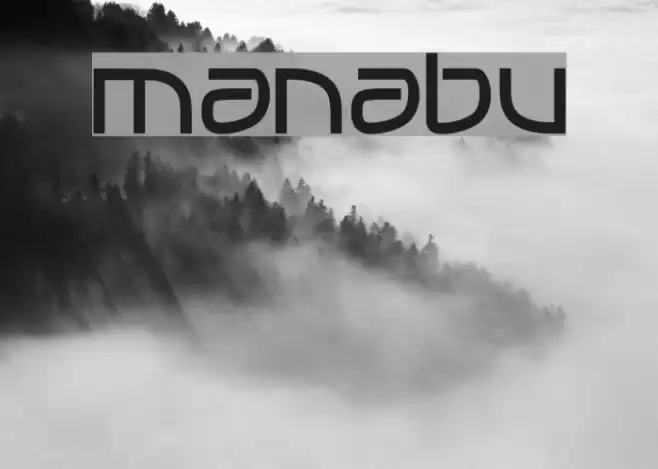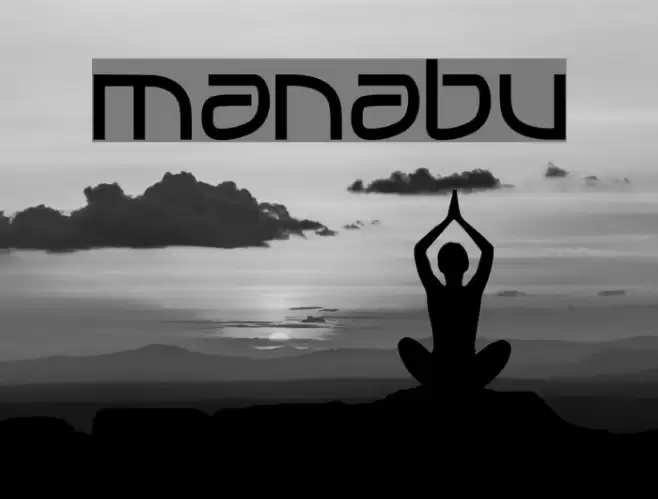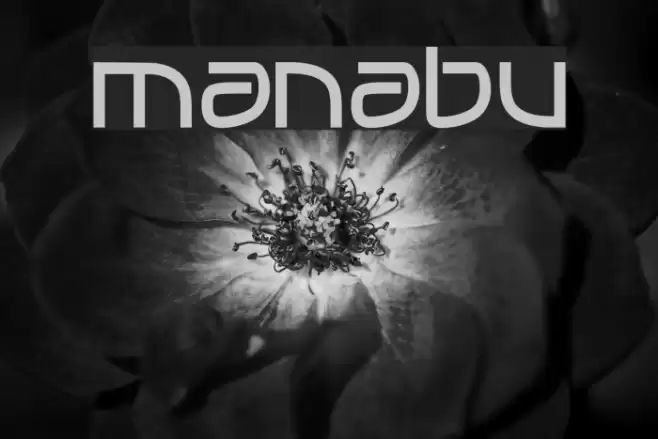
MANABU Font
MANABU Description
This font features a modern and futuristic design with a geometric and angular appearance. The characters are constructed with clean lines and sharp edges, giving it a sleek and contemporary look. The uppercase and lowercase letters maintain a consistent style, with a unique twist on traditional letterforms. The font's design is minimalistic yet bold, making it suitable for various creative applications. Its distinct style is ideal for projects that require a modern and innovative touch, such as technology branding, digital media, and contemporary art projects.
A modern, geometric font with sharp edges and a futuristic style from Uncategorized fonts.
- Proposed Projects: Ideal for technology branding, digital media, contemporary art projects, and innovative design applications.
- Overall Style: Modern, Futuristic
- Use Case: Headlines, Logos, Branding